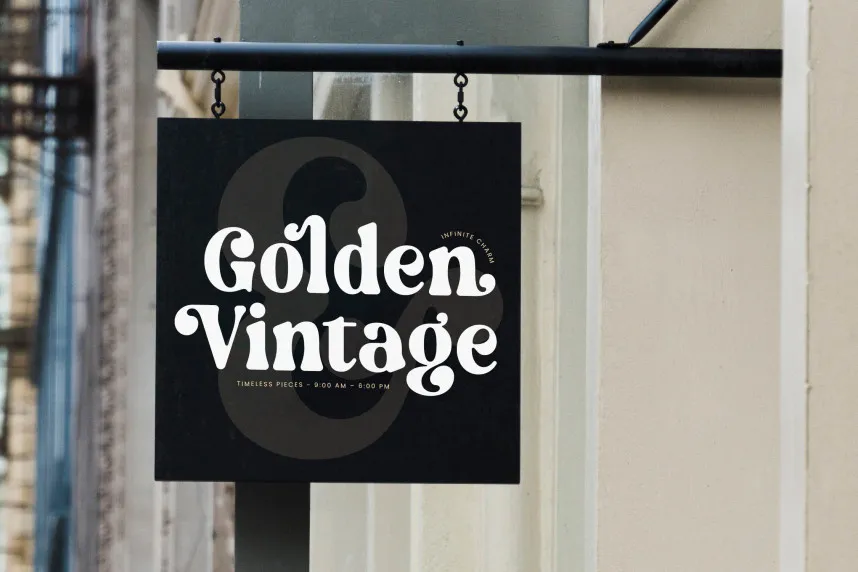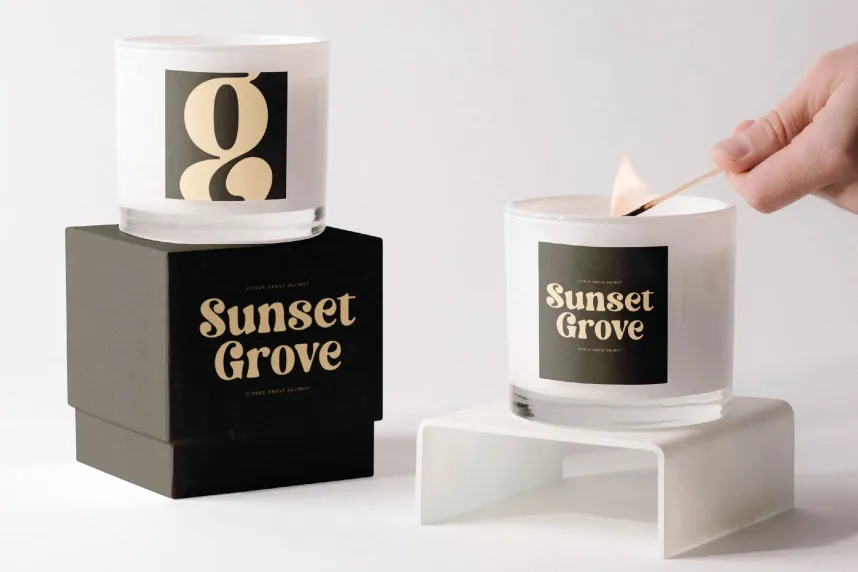
Bardes Magic Font has a mysterious and enchanting charm that makes text look magical. Its unique letter shapes give a sense of fantasy and imagination.
The font is perfect for creative themes, children’s books, posters, and event invitations. It captures a dreamy and artistic mood.
This font feels whimsical yet stylish, adding a spark of creativity to any project. It has a smooth rhythm that makes every letter stand out beautifully.
Its artistic details make it great for logos and headlines that need to look special and expressive. It transforms plain text into eye-catching art.
Bardes Magic Font Family
Designers use this typeface to bring stories and ideas to life through creative typography. It inspires curiosity and wonder.
| Name | Bardes Magic |
| Type | Fantasy Display |
This font is perfect for imaginative designs that want to feel original, playful, and full of character.